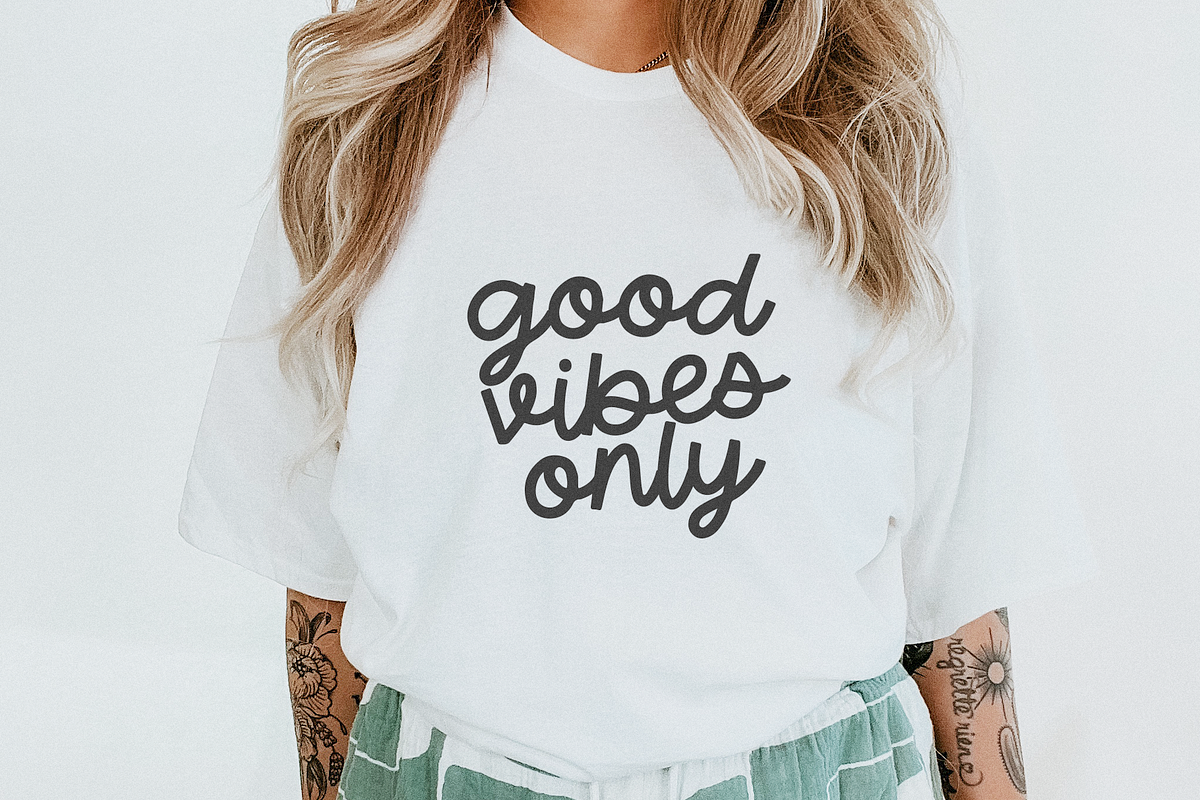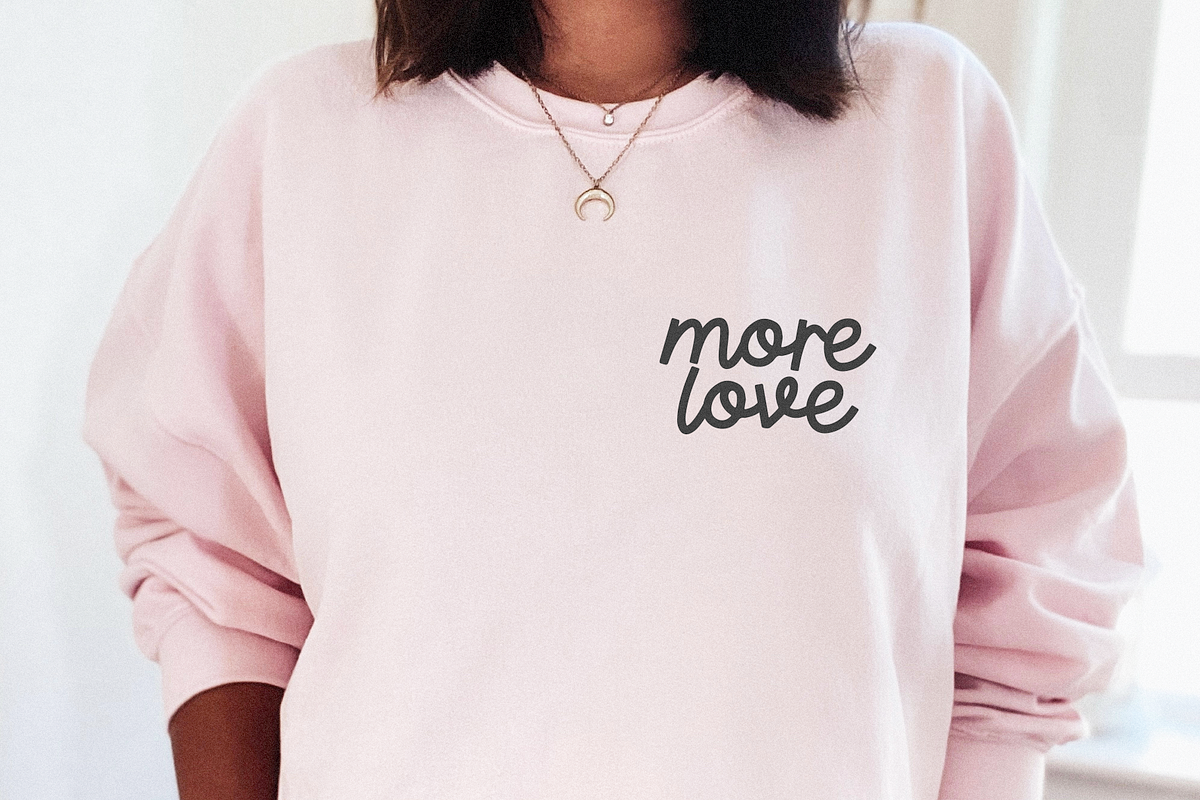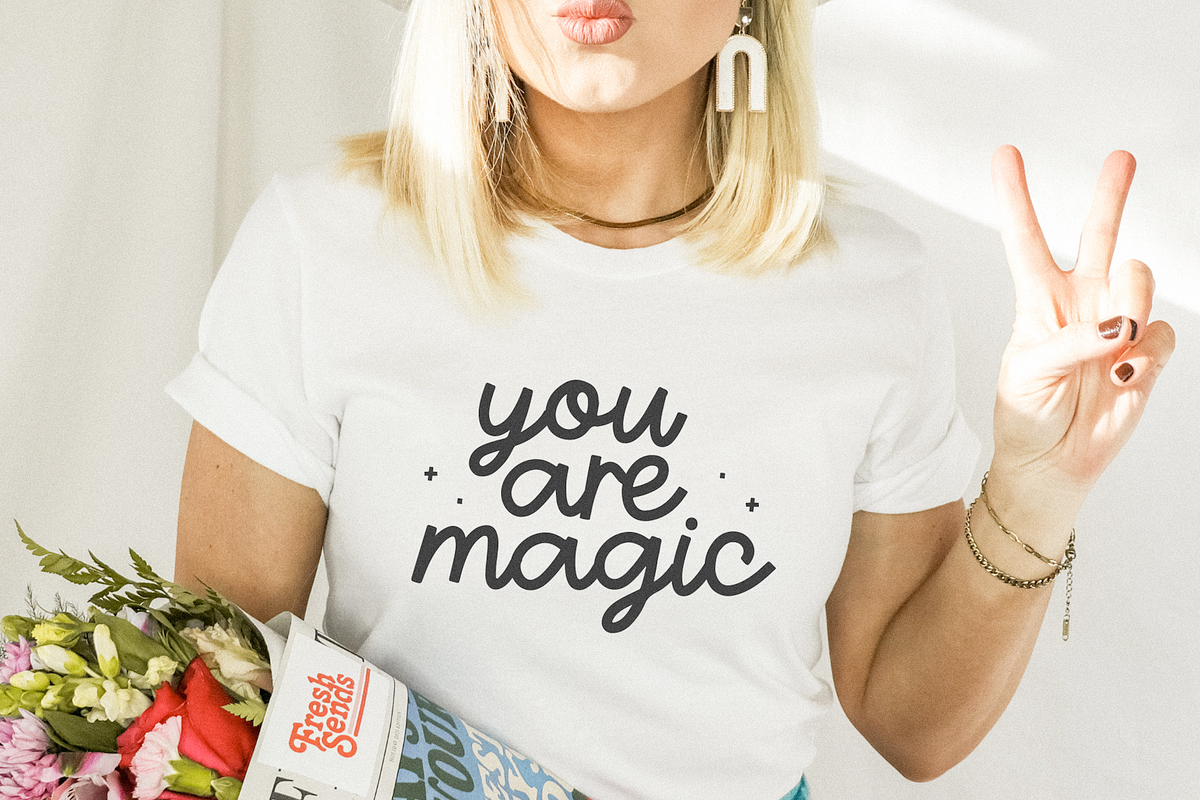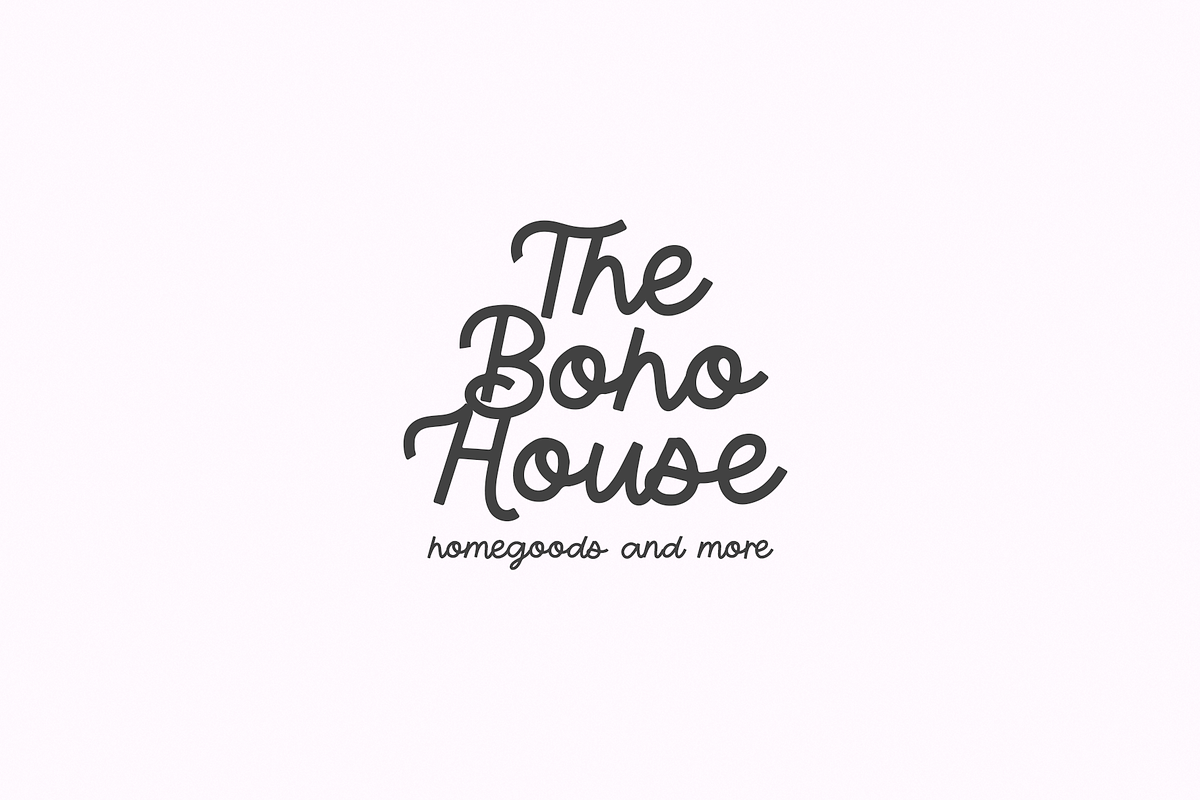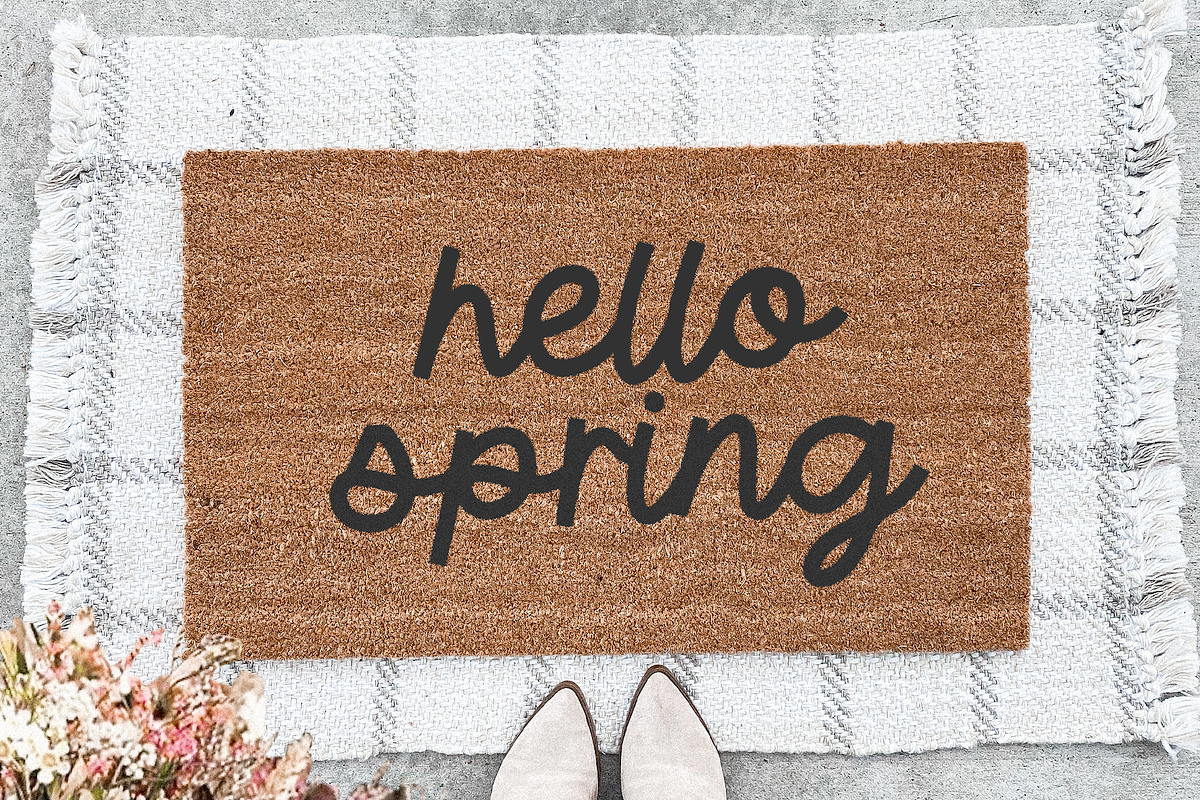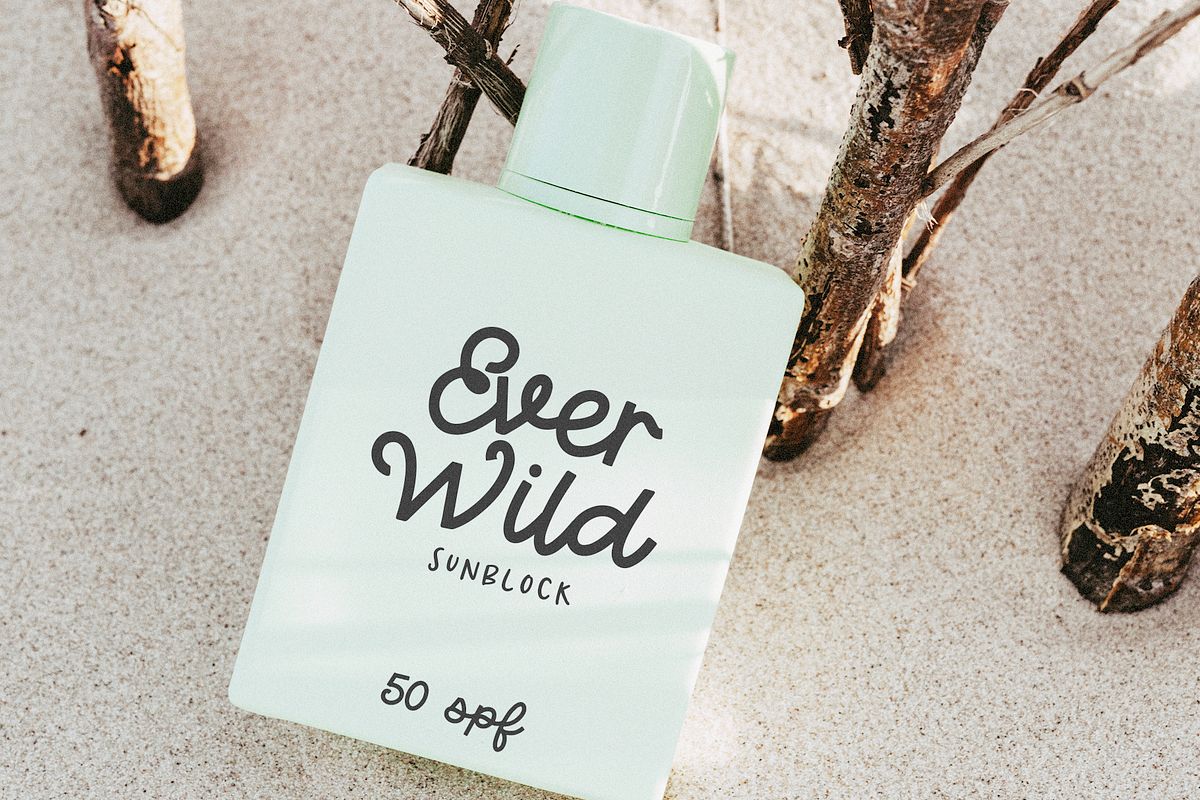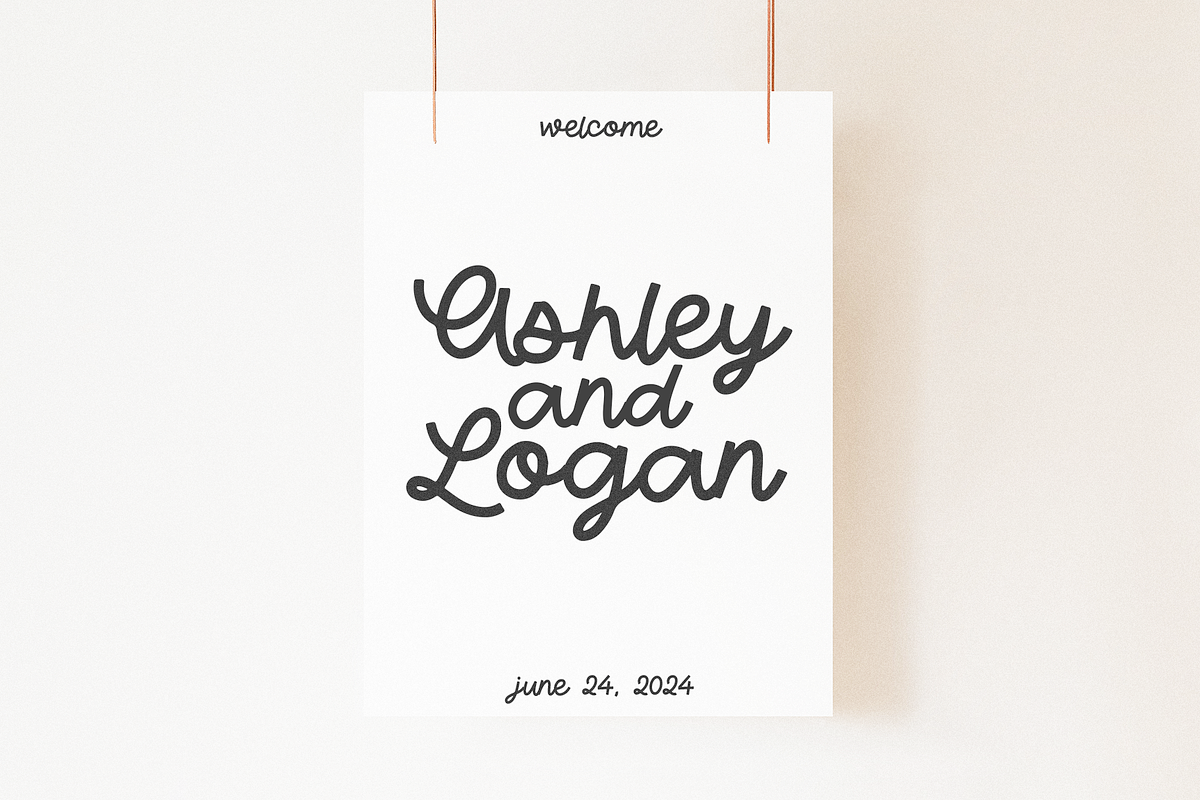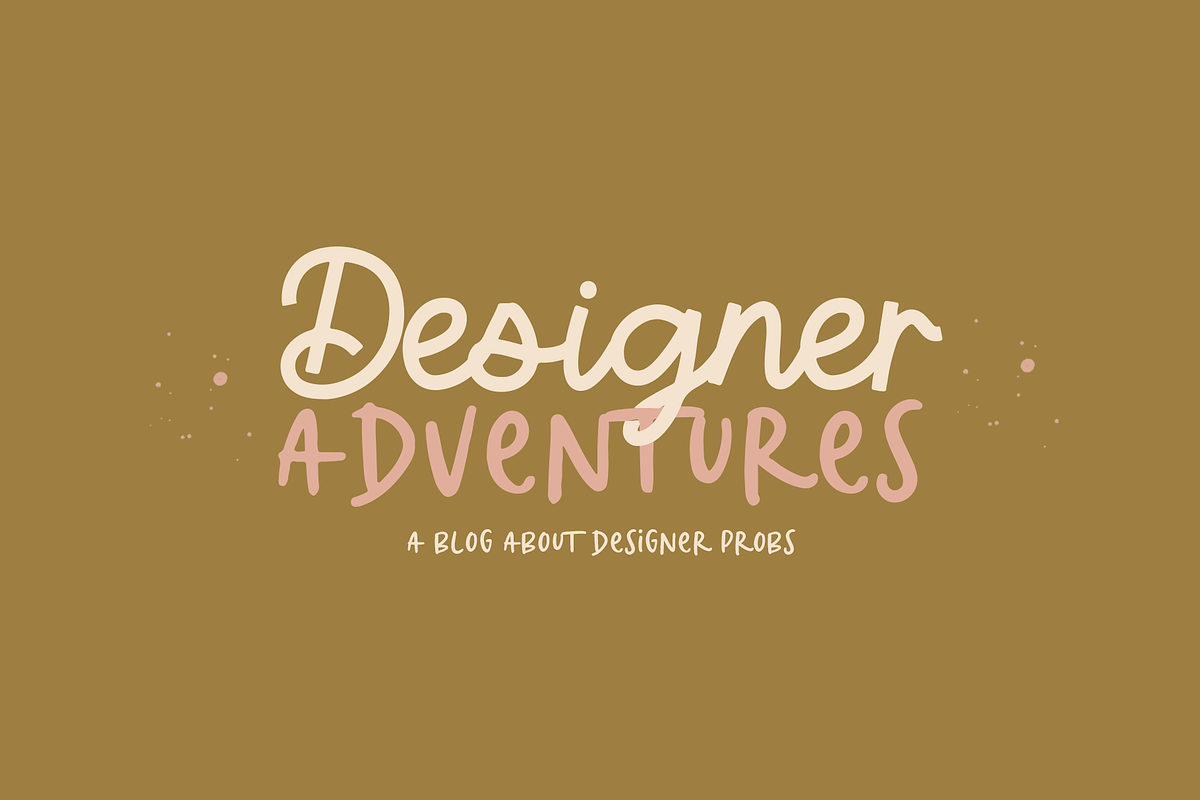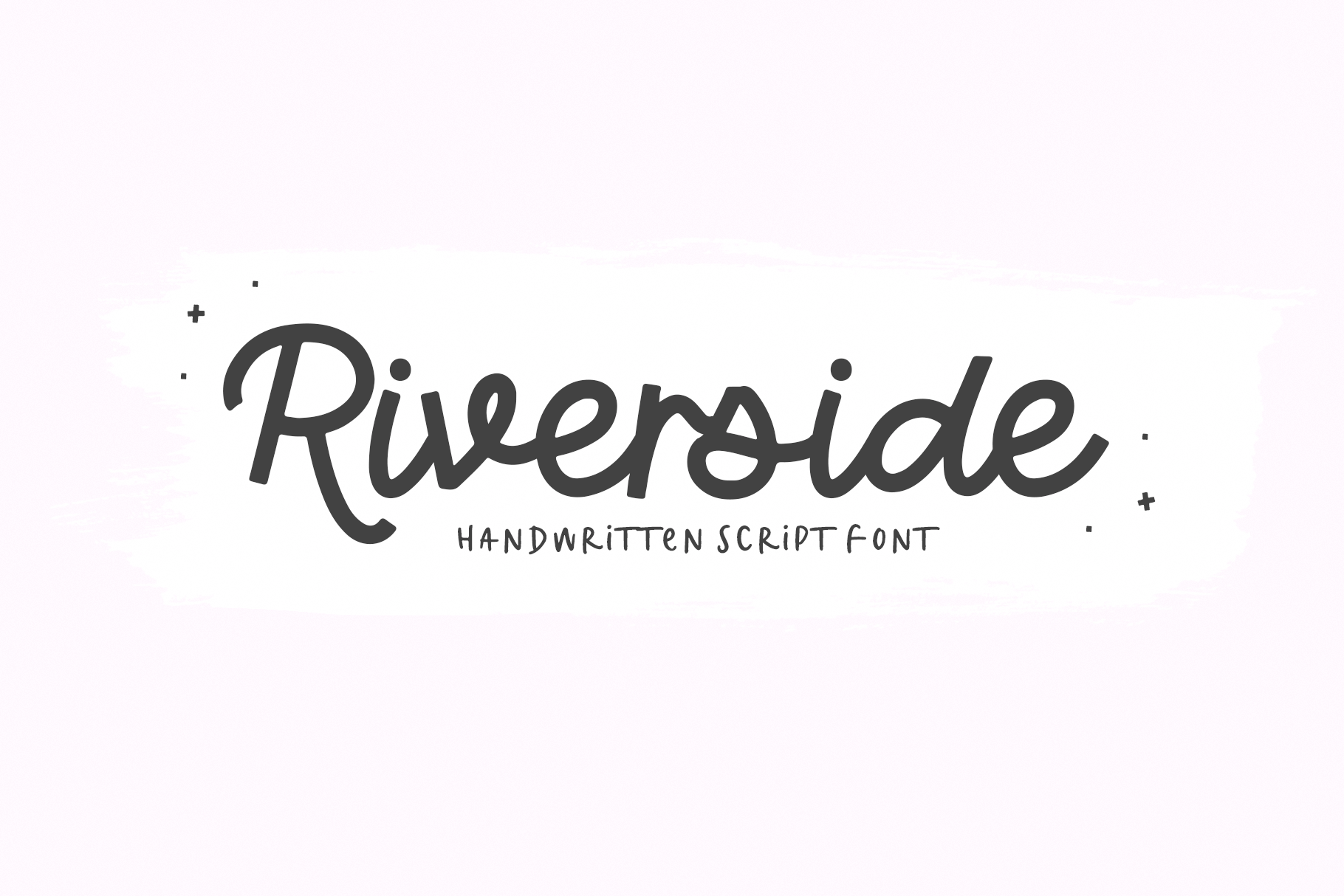
Riverside | Monoline Script Font
Riverside is a modern handwritten script font.
This font is perfect for wedding decor, signs, doormats, farmhouse designs, procreate, cricut projects, branding, blogs, logos, invitations and more!